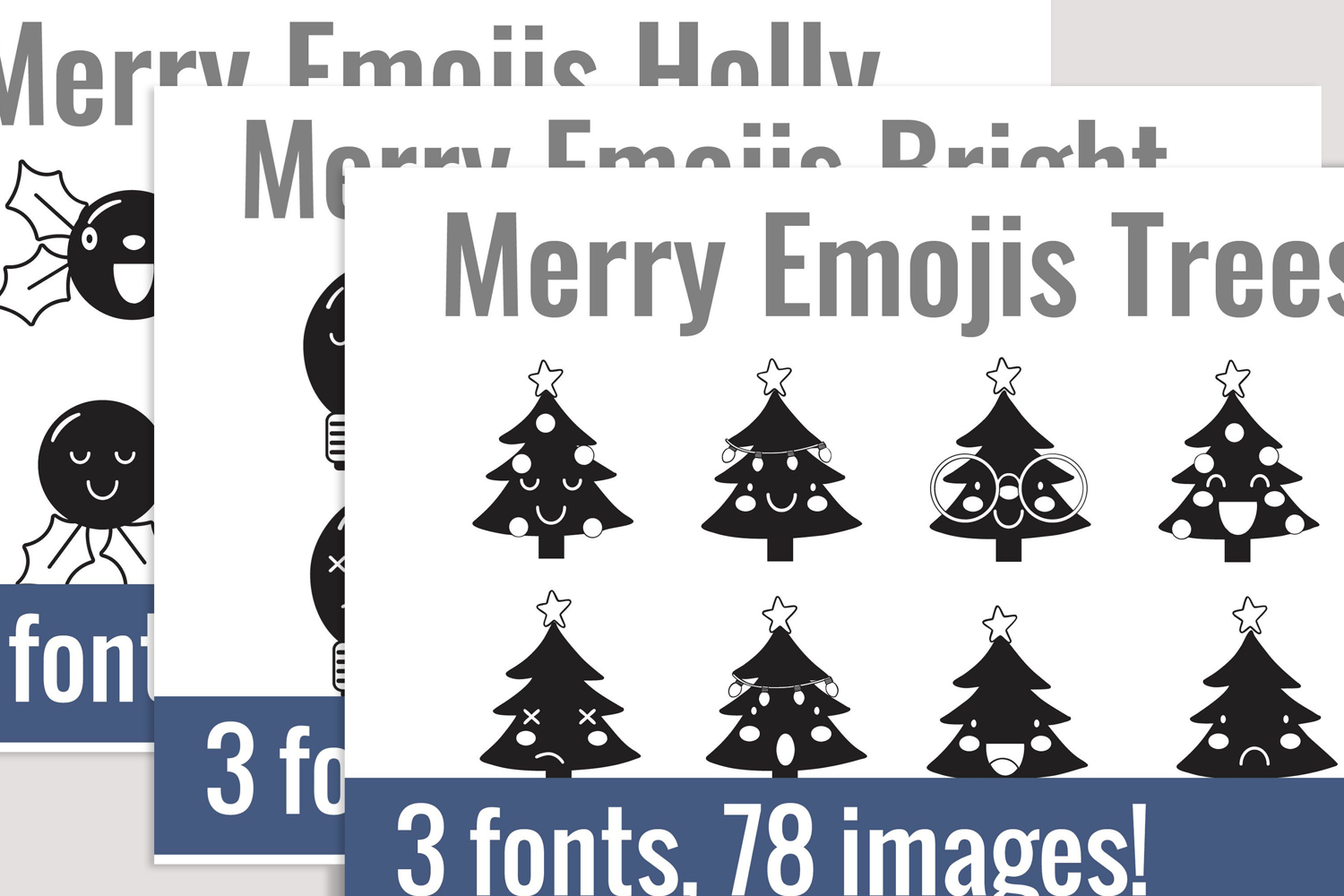
Merry Emojis Dingbats
Unlock endless creativity with 3 perfectly coordinated fonts! There are 3 dingbat fonts in this bundle, featuring cute, kawaii-style emojis. One is Christmas trees, another is Christmas lights, and the third is holly berries.
Tired of spending hours searching for the perfect icons and graphics? Our dingbat fonts put dozens of cohesive, scalable designs at your fingertips. Simply install the font and type a letter to produce a pre-made image. From charming seasonal icons for holiday cards to intricate frames for your invitations, these fonts let you create stunning designs for vinyl cutting, paper crafts, planners, and more.